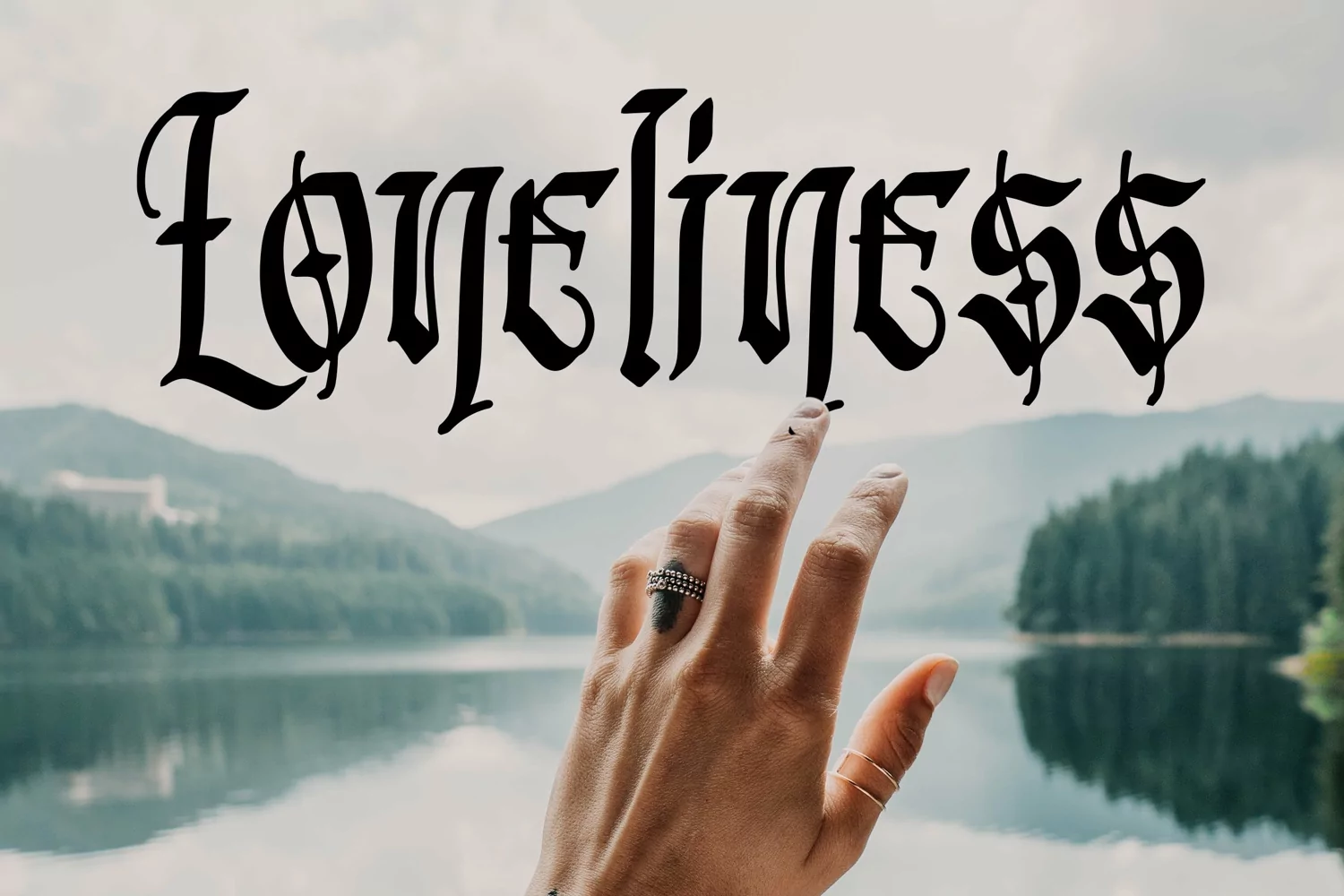
Antiverse - Blackletter Tattoo Font
Antiverse - Blackletter Tattoo Font that contain lowercase, uppercase, symbol, and also support multi language. There’s a lot ligatures in this font. This Font also comes with ligatures, alternates and many more. this font suitable for fashion, branding, catalog and other design what you want.